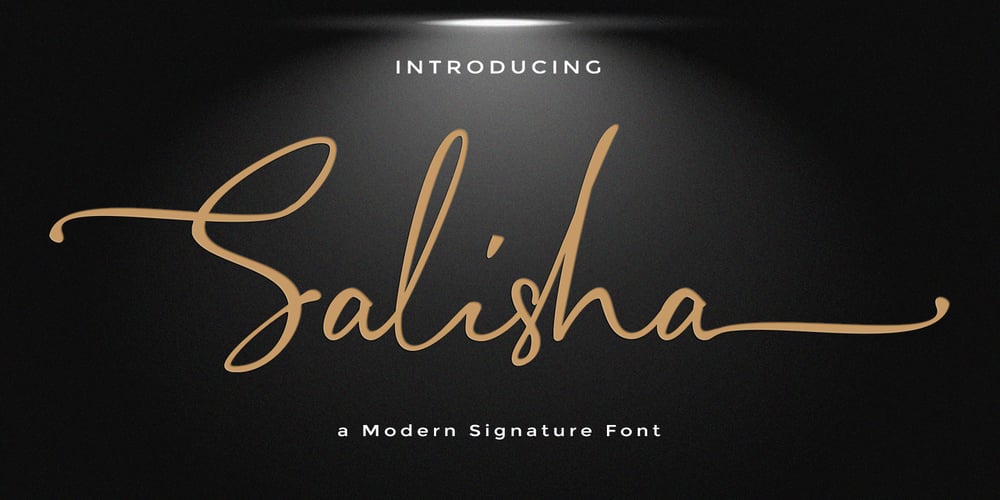
Salisha Signature Font Family was designed by Rizki Andika and published by Letterfreshstudio. Salisha Signature contains 1 styles and family package options. Salisha is a unique, elegant and modern handwriting font. that looks like a signature, this font is intentionally made with unique and alternating ligatures. This style of hand display makes it perfect for use in all your design projects whether it’s logo, label, packaging design, blog title, poster, wedding designs, social media posts, Instagram design, etc.Multiple Language Support:ŠÀÁÂÃÄÅÆÇÈÉÊËÌÍÎÏŸŽÐÑÒÓÔÕÖØÙÚÛÜÝßàáâãäåæçèéêëìíîïñòóôõöøùúûêýÿŒœšžI hope you enjoy this font. If you have questions, don’t hesitate to give me a message :)Thank you for your purchase!